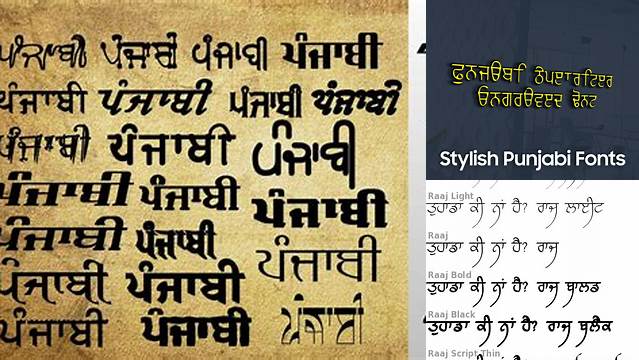
Punjabi Fonts: Generate, Copy & Paste Easily
Hey there, font enthusiasts! Are you looking to add some vibrancy and cultural flair to your digital creations? Do you want to express yourself with the beauty of the Punjabi language? Well, you've come to the right place! This article will be your ultimate guide to the world of stylish Punjabi fonts, providing you with a fantastic text generator, easy copy-and-paste functionality, and a whole lot more. We'll dive deep into how these fonts can transform your social media posts, website content, graphic designs, and any other project you're working on.
Why Use Punjabi Fonts?
Using Punjabi fonts is more than just a style choice; it's a way to connect with a rich and vibrant culture. Punjabi, the language of the Punjab region in India and Pakistan, is spoken by millions worldwide. When you use these fonts, you're not just typing words; you're showcasing a piece of history, heritage, and community. These fonts can make your content stand out in a sea of generic text, making it more memorable and engaging. Think about it – how many times have you scrolled through your feed and stopped to admire a beautifully designed graphic or a striking piece of text? That's the power of a well-chosen font! Whether you're a designer, a social media manager, a content creator, or just someone who loves to experiment with typography, Punjabi fonts can take your projects to the next level.
Moreover, using Punjabi fonts shows respect and appreciation for the language and culture. It's a way to promote inclusivity and diversity in your content. In today's globalized world, it's essential to celebrate different cultures and languages, and using Punjabi fonts is an excellent way to do that. It's about embracing the beauty of the language and sharing it with the world. So, whether you want to create stunning visuals for your brand, design unique invitations for a Punjabi wedding, or simply add some cultural flair to your personal projects, Punjabi fonts are your go-to solution. They offer a unique aesthetic that can instantly captivate your audience and communicate your message in a more compelling way.
The beauty of Punjabi fonts lies in their ability to merge tradition with modernity. You can choose from a wide range of styles, from elegant and classic Gurmukhi scripts to bold and contemporary designs. This versatility allows you to tailor your font selection to match your specific project's tone and purpose. And let's not forget the impact on branding. Imagine a company using a stylish Punjabi font in its logo or marketing materials. It immediately sets them apart from the competition and creates a strong connection with their target audience. So, are you ready to embrace the magic of Punjabi fonts and see how they can make your content shine? Keep reading, and we'll guide you through everything you need to know, including how to easily copy and paste them for your projects.
Understanding the Punjabi Text Generator
Alright, let's get down to the nitty-gritty: the Punjabi text generator. This is your secret weapon for creating eye-catching Punjabi text in a snap. Basically, it's an online tool that converts your regular text into stylish Punjabi fonts. This is super convenient for anyone who doesn't have the technical know-how to install and manage custom fonts on their devices. The process is usually straightforward: You type or paste your text into the generator, select your desired font style, and voila! You get beautifully rendered Punjabi text ready to copy and paste.
One of the coolest things about these generators is the variety they offer. You'll find a wide range of font styles, from traditional Gurmukhi scripts to more modern and creative designs. Some generators even allow you to customize the text further by adjusting the size, color, and other visual elements. This gives you complete control over the final look of your Punjabi text. And the best part? It's usually a free service! This means you can experiment with different fonts and styles without spending a dime. It's a fantastic resource for both personal and professional projects.
When it comes to choosing a Punjabi text generator, consider these factors: the variety of fonts offered, the ease of use, and the customization options available. A good generator will have a user-friendly interface, a wide selection of fonts to choose from, and the ability to adjust the text's appearance to your liking. Make sure the generator is compatible with your device and the platforms where you plan to use the text. You wouldn't want to create something amazing only to find out it doesn't work where you need it. Always remember to test the generated text before finalizing your project.
Before you start using a generator, it's also helpful to understand the basics of the Gurmukhi script, which is commonly used to write Punjabi. Knowing a few basic characters and how they combine will help you choose the right font and understand how the text will look. Don't worry; you don't have to become an expert, but having a basic understanding will make the process smoother. And with a few simple clicks, you can copy and paste your stylish Punjabi text into your favorite applications – from social media to design software – making it easy to share your creations with the world.